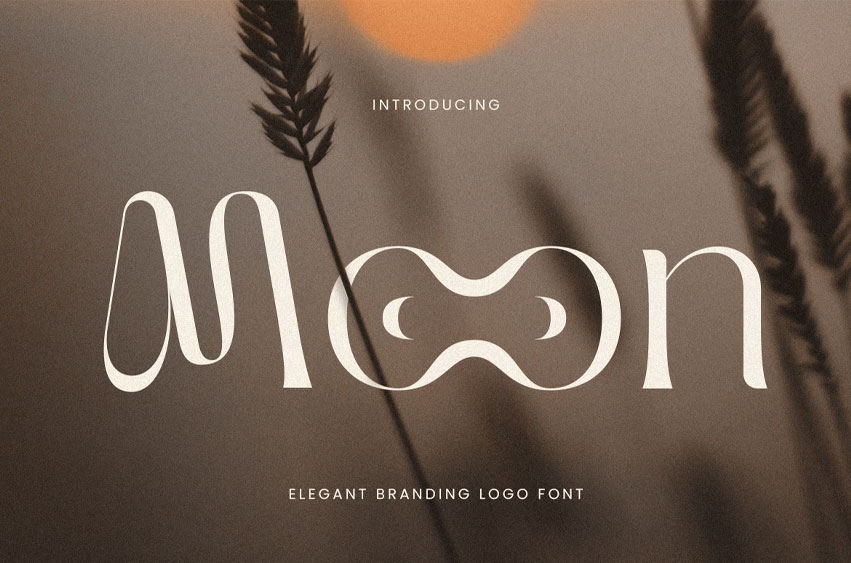
Moon Font
Moon Font is a cinematic branding logo font that combines elegance with cinematic charm. Perfect for high-end logos, film titles, luxury branding, and sophisticated design projects, MOON features graceful letterforms and professional serifs that bring refinement to any creative endeavor.
Whether you’re designing a logo for a film studio, a luxury brand, or a prestigious event, MOON adds a timeless touch to your brand. Inspired by the elegance of cinema, this font creates memorable and visually striking designs for businesses that aim to stand out with a polished, luxurious image.
MOON – Cinematic Branding Logo Font Features
• Elegant serif letterforms with a cinematic, refined touch
• Ideal for high-end logos, branding, and film titles
• Includes uppercase, lowercase, numerals, and punctuation
• Classic, professional design with a timeless appeal
• OpenType features for advanced typographic control
Create a lasting impression with MOON – the perfect font for cinematic branding and luxurious logos.